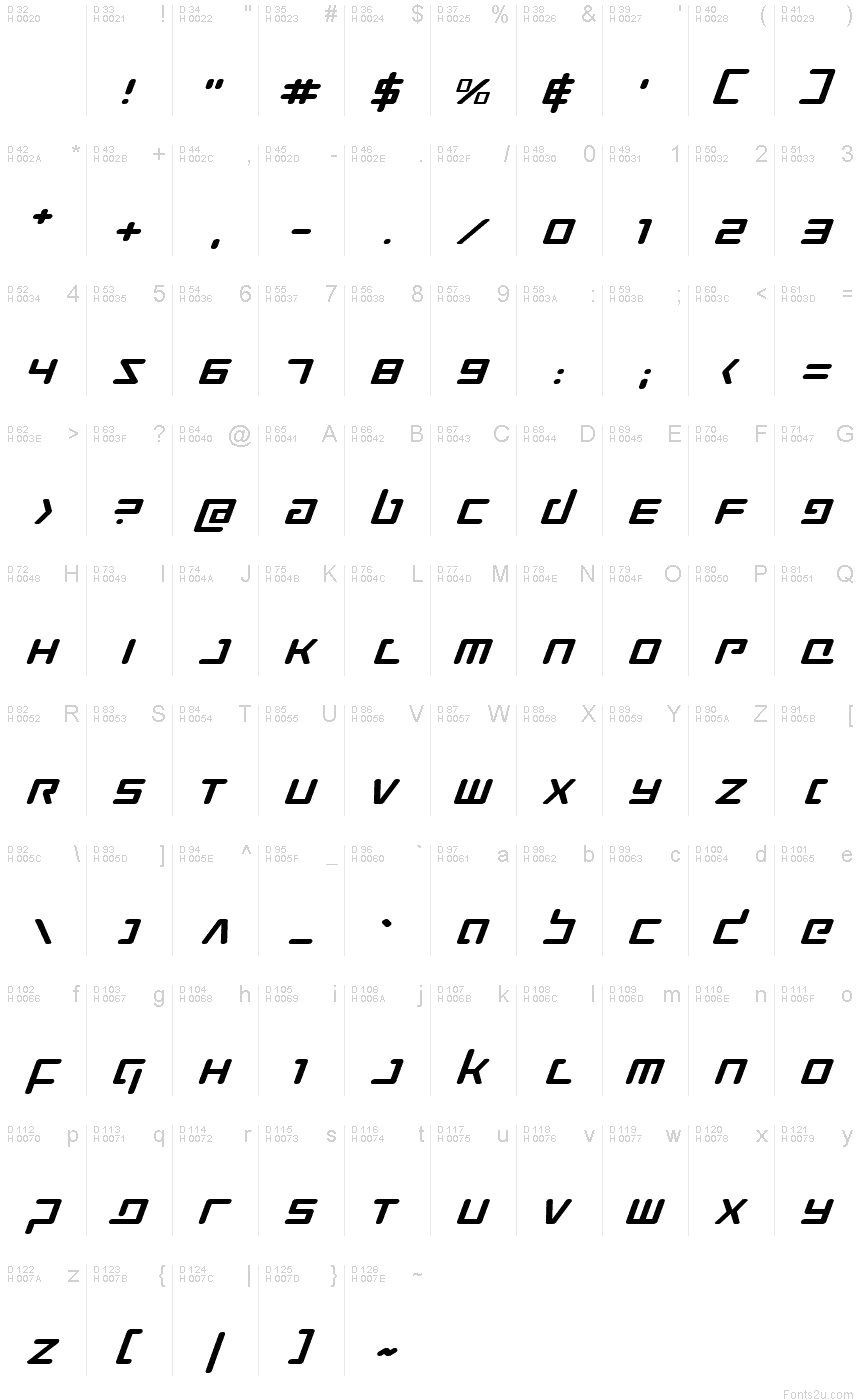
Prokofiev Expanded Italic, designed by Iconian Fonts, is a free futuristic display font with broad, forward-leaning letterforms. Rounded bends meet sharp diagonal cuts, giving the strokes a machined, aerodynamic profile. The lettering looks fast and solid.
As a design element, it can turn technology branding into a sleek badge with the look of a racing machine. That industrial shape also suits game graphics, motorsport merchandise, and science-fiction event posters, especially for projects built around speed and engineered machinery. The angled, connected-looking strokes can become tracks or illuminated segments in a digital dashboard interface rather than serving as neutral lettering.